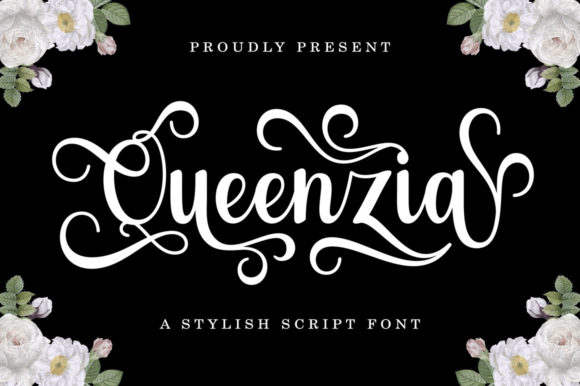
Introducing Queenzia Font: The Majestic Script for Your Creative Vision
Embark on a typographic adventure with Queenzia Font, a script font that exudes elegance and sophistication. Its graceful curves and delicate strokes bring a touch of timeless beauty to your designs, leaving an everlasting impression on your audience.
Crafted by the renowned Skinny type foundry, Queenzia Font is a masterpiece of digital artistry. Each letterform is meticulously designed to convey a sense of royalty and grandeur, making it the perfect choice for projects that demand attention.
Unleash your creativity with Queenzia Font and explore its endless possibilities. Create captivating logos that command attention, design elegant branding that sets you apart, and craft exquisite invitations and stationery that leave a lasting memory.
Elevate Your Designs to New Heights
With Queenzia Font at your disposal, you'll have the power to transform ordinary designs into extraordinary creations. Its versatility extends beyond logos and branding, making it an ideal choice for social media posts, blog headers, and website designs.
Imagine your Instagram feed adorned with captivating quotes written in Queenzia Font, each post a testament to your refined taste and artistic flair. Enchant your audience with stunning visuals that speak volumes about your brand's personality and values.
Make a Statement with Queenzia Font
In a world saturated with digital noise, Queenzia Font empowers you to make a statement that resonates. Its timeless charm and modern appeal cut through the clutter, ensuring your designs stand out from the crowd.
Whether you're a seasoned designer or just starting out, Queenzia Font is your secret weapon to create designs that captivate and inspire. It's the ultimate tool for expressing your unique style and leaving an indelible mark on the world.
Join the Creative Revolution
Don't settle for ordinary fonts that blend into the background. Embrace the extraordinary with Queenzia Font and unleash your creative potential. It's time to elevate your designs, captivate your audience, and leave a lasting legacy of beauty and elegance.